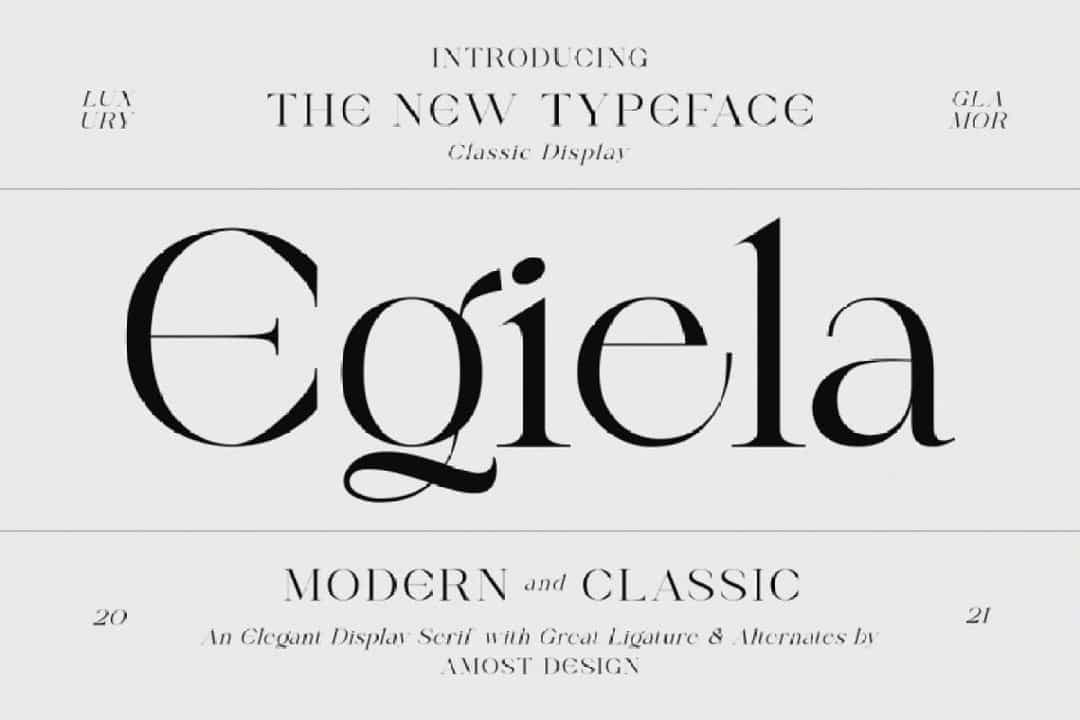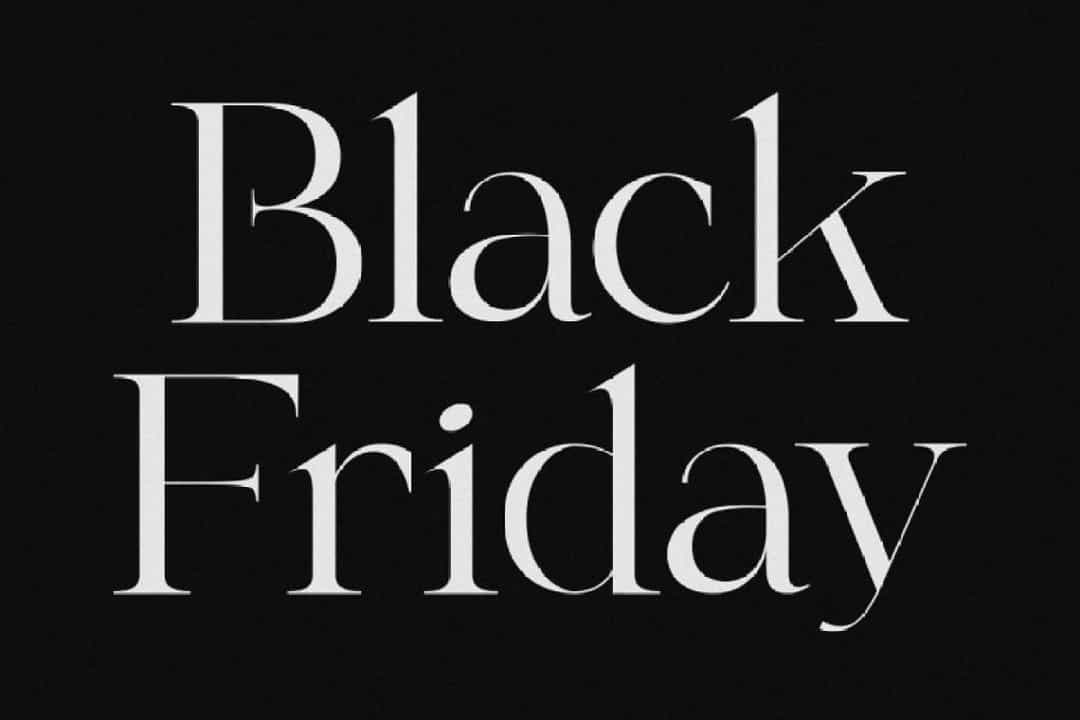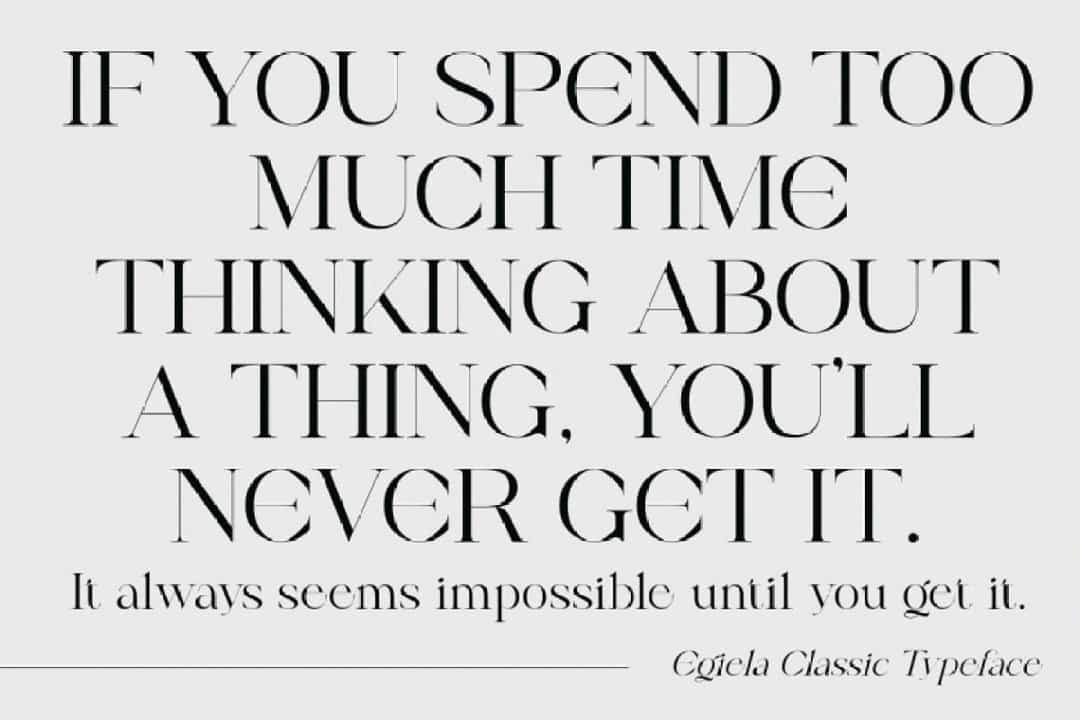
Discover Egiela Font, part of the Serif collection—a versatile and unique font perfect for adding a personal touch to your projects. Download it for free and enjoy crafting designs with style, from invitations to social media posts. This font is available exclusively for personal use, giving you the freedom to create without limits. Unlock your creativity with Egiela Font today!
Egiela is an elegant and authentic serif font with an iconic and stylish aesthetic, ideal for use in branding, logo design, invitations, stationery wedding designs as well as social media posts!